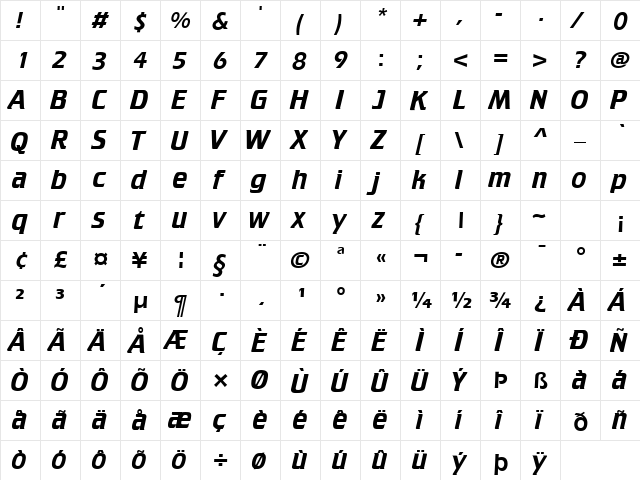
Krupper (Plain) Font Preview
Krupper (Plain)
Design Context for Krupper Typeface
Krupper takes a measured approach to typography — its balanced proportions and neutral character make it a reliable workhorse for both digital and print work.